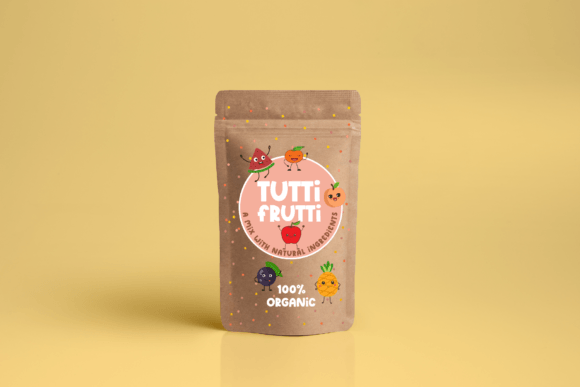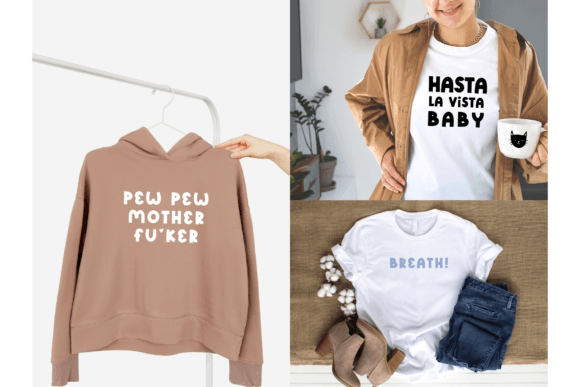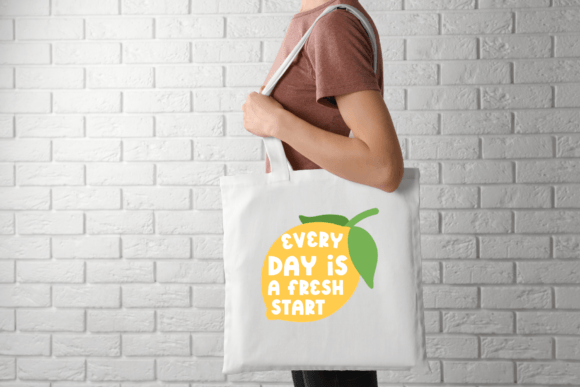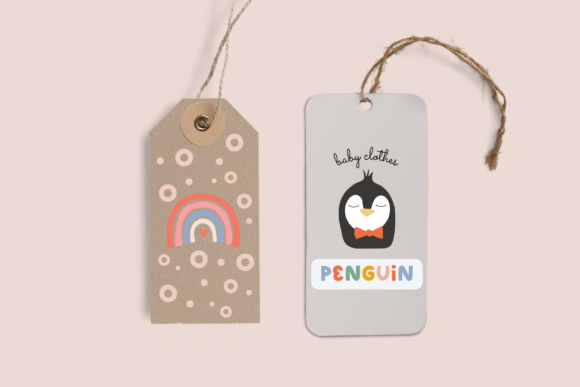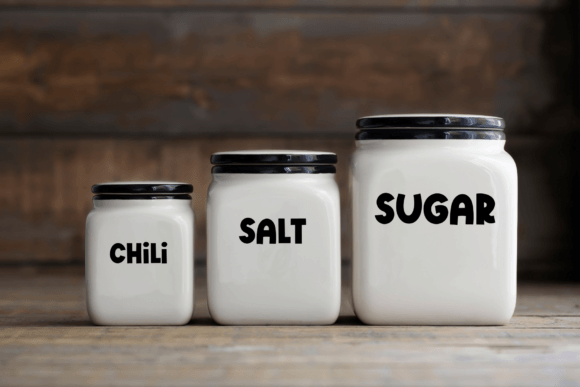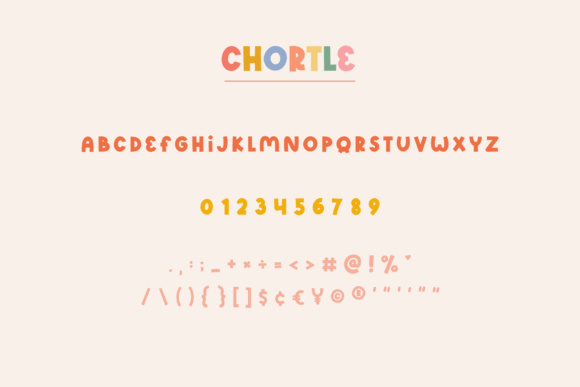
Introducing Chortle Font: The Bold and Quirky Display Font for Creative Projects
Are you a designer, crafter, or DIY enthusiast looking for a unique and eye-catching font to elevate your creative projects? Look no further than Chortle Font, a bold and quirky display font that’s perfect for adding a touch of personality to your designs. In this article, we’ll explore the features and benefits of Chortle Font, and show you how to use it to take your creative projects to the next level.
What is Chortle Font?
Chortle Font is a bold and quirky display font that’s designed to make a statement. Its unique and playful design makes it perfect for use in a variety of creative projects, from mugs and t-shirts to wall prints and greeting cards. With its bold and eye-catching design, Chortle Font is sure to grab attention and add a touch of personality to your designs.
Features of Chortle Font
So what makes Chortle Font so special? Here are just a few of its key features:
- Bold and Quirky Design: Chortle Font has a bold and quirky design that’s perfect for making a statement.
- Highly Versatile: Chortle Font can be used in a wide range of creative projects, from mugs and t-shirts to wall prints and greeting cards.
- Easy to Read: Despite its bold and quirky design, Chortle Font is easy to read, even at small sizes.
- Perfect for DIY Projects: Chortle Font is perfect for DIY enthusiasts and makers who want to add a personal touch to their projects.
Uses for Chortle Font
So what can you use Chortle Font for? The possibilities are endless! Here are just a few ideas to get you started:
- Mugs and T-Shirts: Add a touch of personality to your mugs and t-shirts with Chortle Font.
- Wall Prints and Posters: Use Chortle Font to create eye-catching wall prints and posters that will grab attention.
- Greeting Cards and Invitations: Add a touch of whimsy to your greeting cards and invitations with Chortle Font.
- Labels and Stickers: Use Chortle Font to create custom labels and stickers that will make your products stand out.
- Blogs and Social Media: Use Chortle Font to add a touch of personality to your blog and social media graphics.
- Picture Books and Baby Clothing: Chortle Font is perfect for use in picture books and baby clothing, adding a touch of whimsy and fun to your designs.
Why Choose Chortle Font?
So why choose Chortle Font for your creative projects? Here are just a few reasons:
- Unique and Eye-Catching: Chortle Font is a unique and eye-catching font that’s sure to grab attention.
- Highly Versatile: Chortle Font can be used in a wide range of creative projects, making it a great addition to your font library.
- Easy to Use: Chortle Font is easy to use, even for those with limited design experience.
- Perfect for DIY Enthusiasts: Chortle Font is perfect for DIY enthusiasts and makers who want to add a personal touch to their projects.